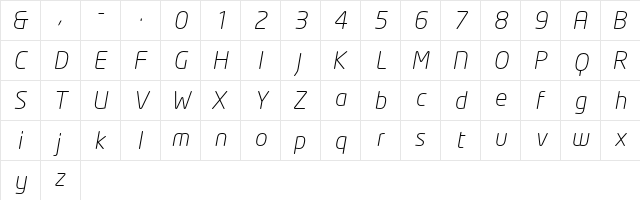
NeoTech Light Italic Font Preview
Design Context for NeoTech Typeface
NeoTech channels digital-age aesthetics through its sharp, structured letterforms — ideal for brands that want to signal innovation. The slanted form adds forward momentum and visual energy. The delicate stroke weight brings airiness and refinement to layouts.
Pro Tip: Use NeoTech in combination with a neutral sans for body text. Let it define the brand voice in headlines while keeping reading comfortable elsewhere.